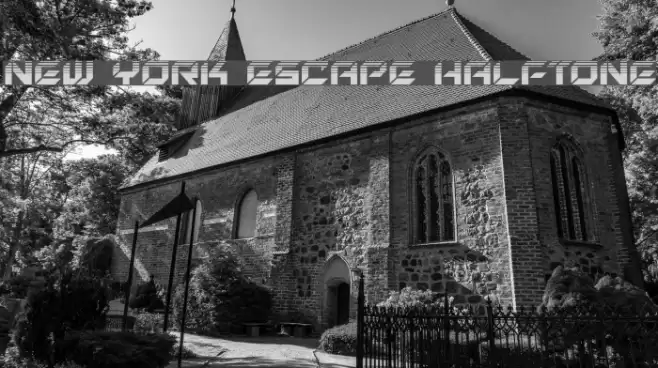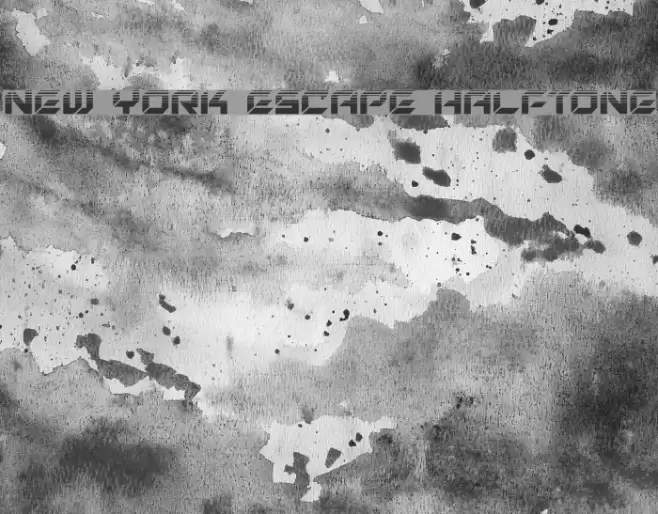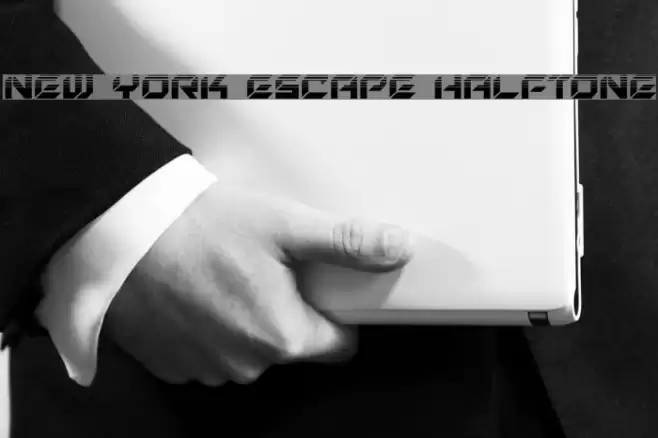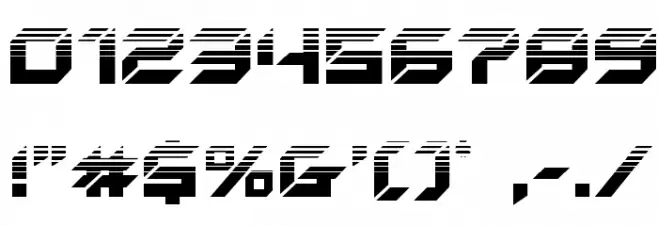
New York Escape Halftone Font
New York Escape Halftone Description
This font features a bold, geometric design with a distinct halftone effect, creating a sense of depth and movement. The characters are constructed with sharp angles and a blocky structure, giving them a futuristic and industrial appearance. The halftone pattern is integrated into the strokes, adding a unique texture that enhances the visual impact. The uppercase and lowercase letters maintain a consistent style, while the numerals and special characters complement the overall design. This font is ideal for projects that require a modern and edgy aesthetic.
A bold, geometric font with a halftone effect, offering a futuristic and industrial look from Uncategorized fonts.
- Proposed Projects: Suitable for branding, posters, album covers, and any project needing a modern, edgy aesthetic.